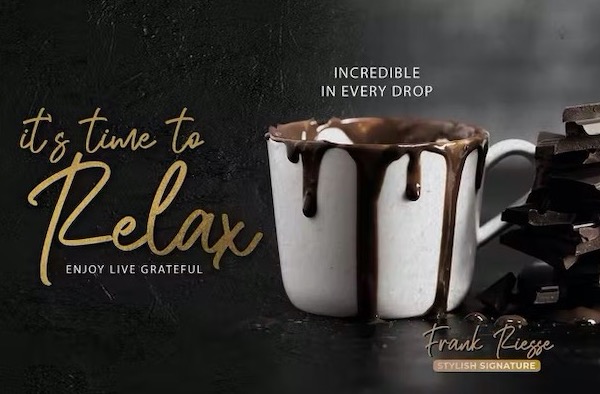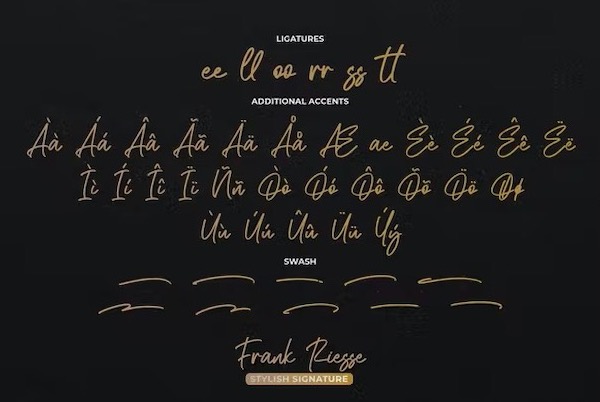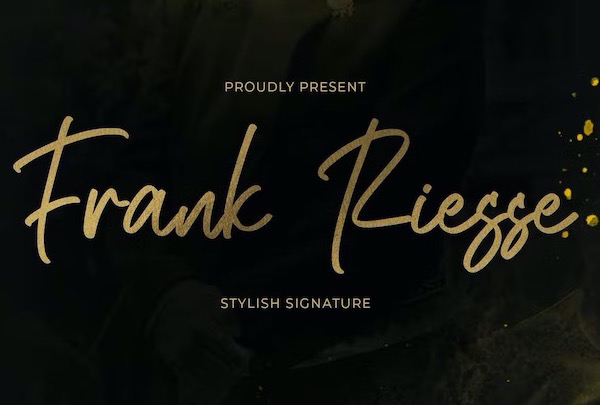
Frank Riesse is an elegant modern Stylish Signature Script font that is a quality script typeface and it was designed in a relaxed and fast manner with 6 ligatures and an added swash. Frank Riesse is perfect for homeware design, branding projects, logo, design, quotes, product packaging, photography, watermark
Frank Riesse Handwritten Script Font